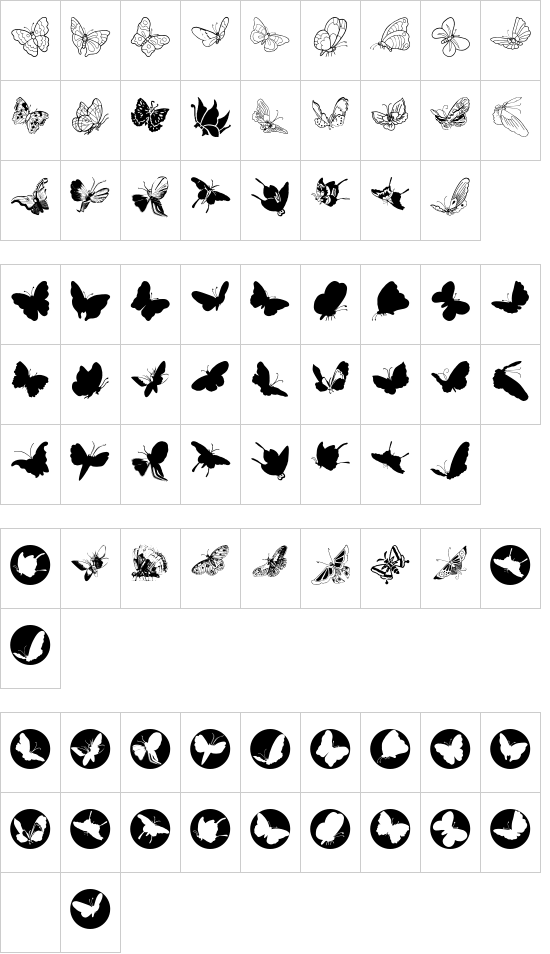
ButterFly
About ButterFly
ButterFly is an animal-themed dingbat font that fills the keyboard with delicate butterfly and insect illustrations. Each glyph is a finished decorative motif with light, hand-drawn detail, the wings and bodies rendered as ready-made graphics rather than typed letters, all sharing a soft, springtime feel.